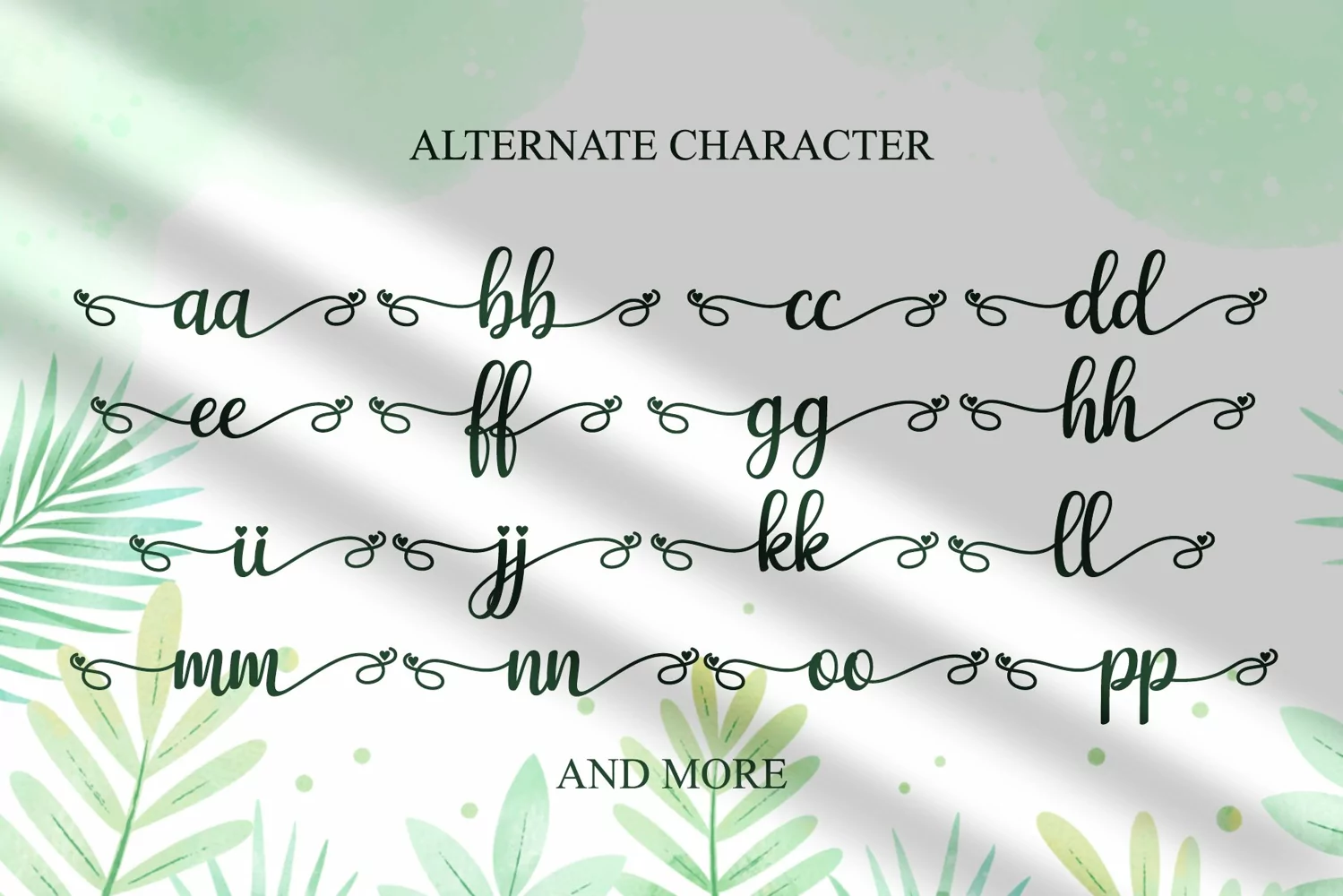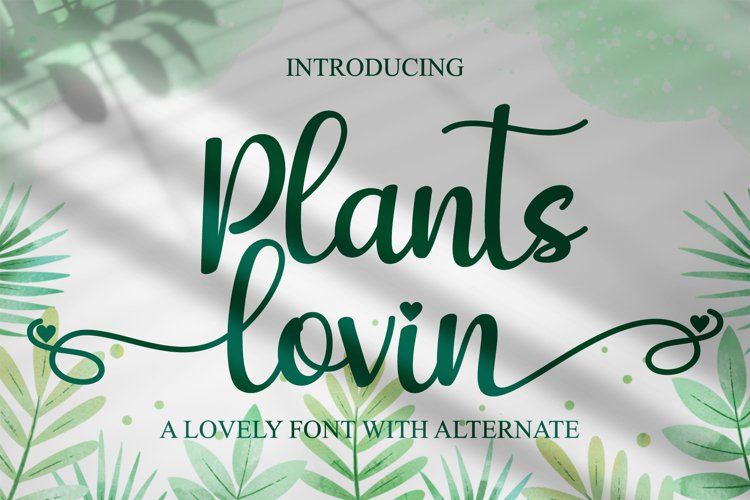
Plants lovin
Introducing,
Plants lovin is mazing hand lettering look attractive and natural!
Every single letters have been carefully crafted to make your text looks beautiful.
This font includes over 280 glyphs, including over 77 alternate characters with swashes.
It has over 60 extended Latin characters for language support.
This font is suitable for invitation, branding, advertising, poster design, SVGs, Canva Templates, Sublimation Designs, Monogram SVG, Paper Cutting Templates, Embroidery Digital Designs,
Ligature Character
Multilingual Support
Alternate Character